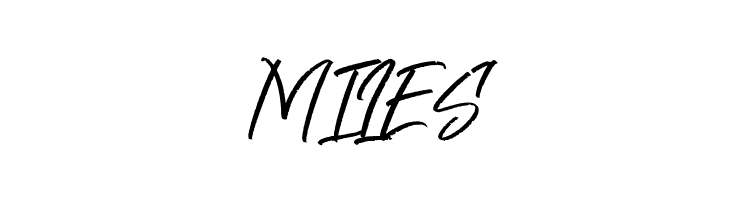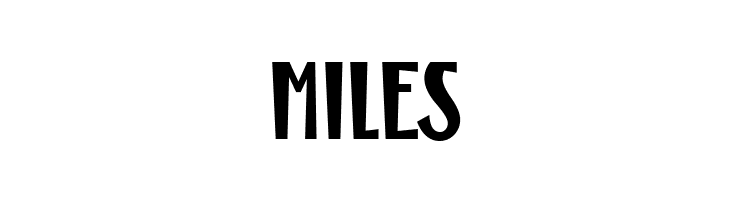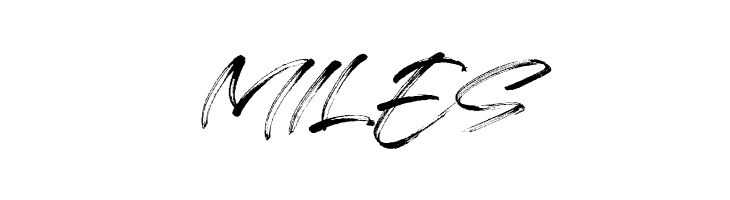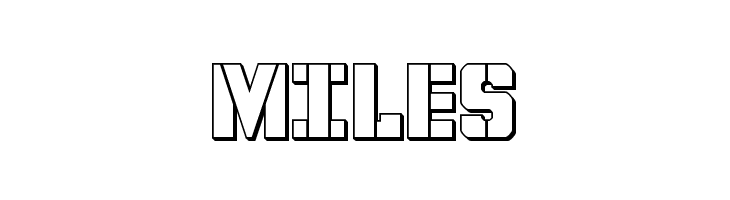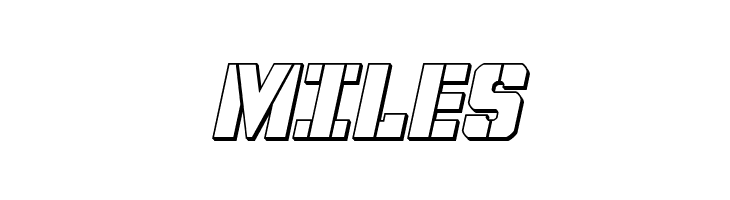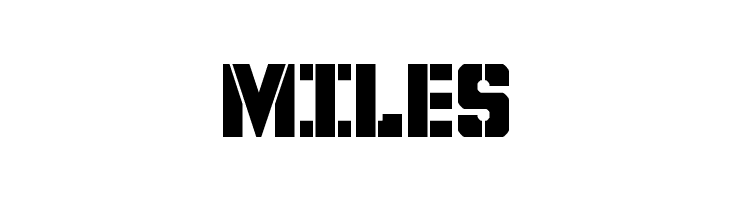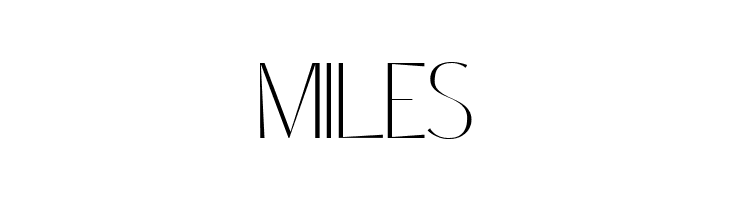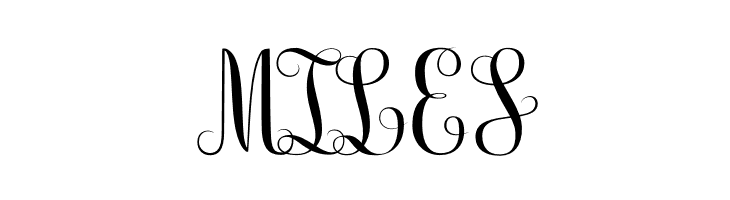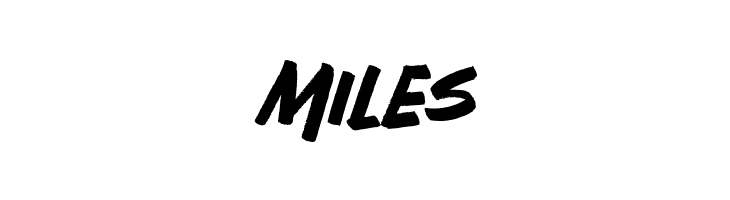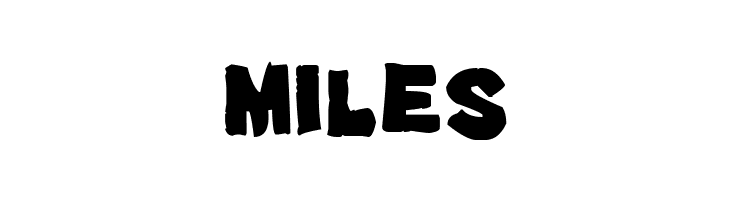
• Free Agent Italic
A futuristic italic font with sharp, angular lines and a dynamic, modern style.
• Free Agent Leftalic
A futuristic, angular font with sharp edges and a dynamic slant.
• Free Agent Semi-Italic
A sleek, futuristic font with angular, slanted characters.
• Free Biker
A bold, rugged font with a classic biker aesthetic.
• Free Cheese
• Free Cheese Italic
A bold, playful italic font with a hand-drawn, energetic style.
• Free Coastine Regular
A sleek, modern font with tall, narrow characters and minimal contrast.
• Free Holiday
A playful, hand-drawn font with tall, narrow letters and a whimsical style.
• Free License
A dynamic, brush-style handwritten font with bold, sweeping strokes.
• Free License
A dynamic brush script font with expressive, fluid strokes.
• Free Medieval
• Free Minded
A bold, brush-style font with dynamic, energetic strokes.
• Free Monday
A playful, bold font with rounded strokes and a hand-drawn feel.
• Free Monogram
An elegant, ornate script font with intricate swirls and bold, modern numerals.
• Free Monogram Beta
An elegant script font with intricate swirls and flourishes, perfect for formal designs.
• Free Monospaced
A clean, monospaced typeface with uniform spacing and modern design.
• Free Monospaced Bold
A bold, monospaced font with uniform width and modern, rounded edges.
• Free Monospaced Bold Oblique
A bold, oblique monospaced font with a modern and dynamic style.
• Free Monospaced Oblique